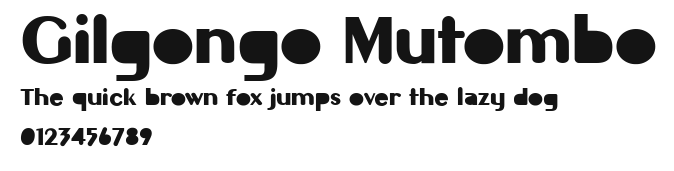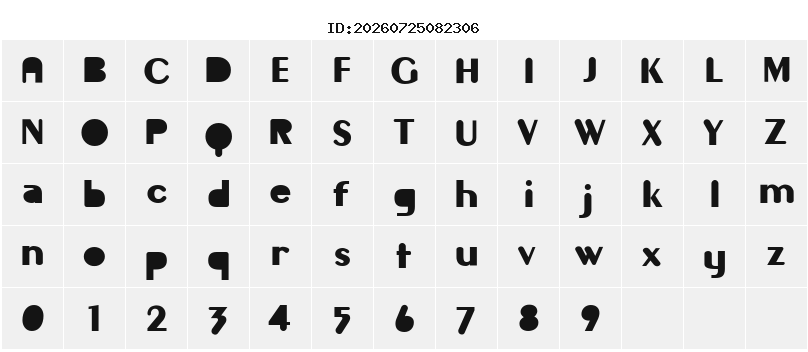
• Font Name: Gilgongo Mutombo
• Designer: Apostrophe & Graham Meade
About Gilgongo Mutombo.ttf
Gilgongo Mutombo.ttf is a modern, elegant sans-serif font designed for ultimate readability and visual harmony. Perfect for branding, headlines, web design, and print materials.